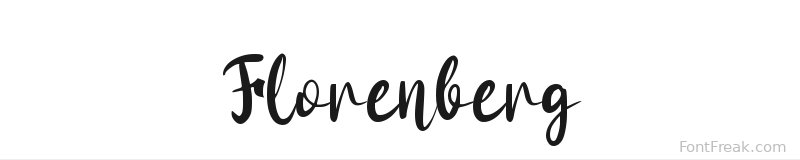
Florenberg
About Florenberg
The Florenberg font, designed by Wahyu Eka Prasetya, is an elegant script typeface that captures a modern yet classic aesthetic. This font falls into the handwritten style category, characterized by its fluid strokes and organic appearance. With a medium stroke weight and a balanced contrast, Florenberg boasts a playful yet sophisticated charm that makes it versatile for various design applications. The spacing is well-considered, allowing for readability while maintaining a personal touch, making it an excellent choice for projects that require a warm and inviting feel.
Perfect for wedding invitations, Florenberg brings a romantic flair to any event stationery, capturing the essence of love and celebration. Its whimsical nature also makes it suitable for creating eye-catching movie posters that need a touch of elegance and creativity. Small business owners will find this font ideal for restaurant menus, as it adds a unique character that can enhance the dining experience. Additionally, content creators can utilize Florenberg for social media graphics, ensuring their posts stand out with a distinctive and artistic vibe.
What truly sets Florenberg apart is its ability to blend elegance with approachability. The unique character of this typeface brings warmth and personality to any design, making it a standout choice for anyone looking to create memorable and impactful visual content. Whether used in formal or casual settings, Florenberg ensures that your message is conveyed with style and grace.